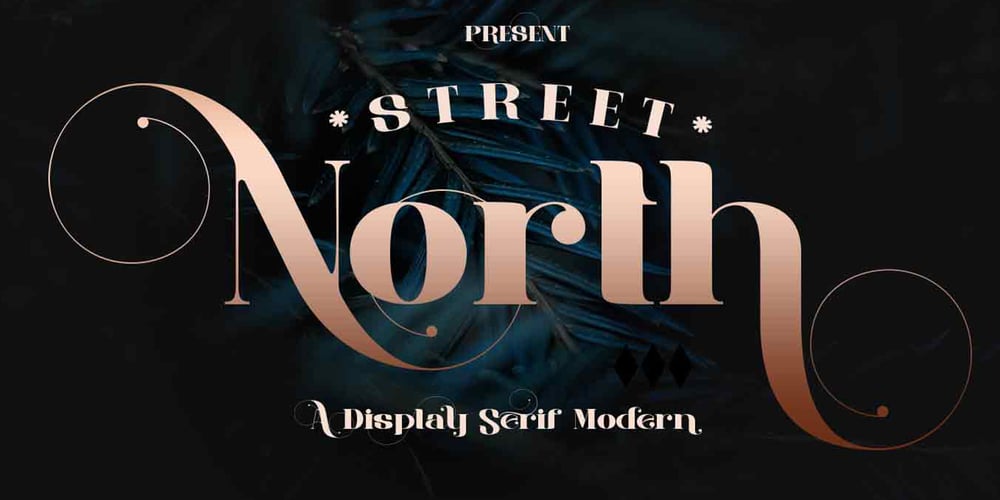
Street North Font Family was designed by Ibram Syah and published by Jehansyah. Street North contains 1 styles and family package options. Street North this is a modern serif font, which is very elegant, and also looks very luxurious, make this the choice of your large project, it is suitable for all titles, or large writing, there are several alternates that you can use and combine, and supported by PUA encode , meaning you can easily access all the letters with a glyph, perfect for e-mail, magazines, book titles, movies, notes, brands, logos, and much moreinclude :Street North otfpunctuationnumericalternateThank you very much